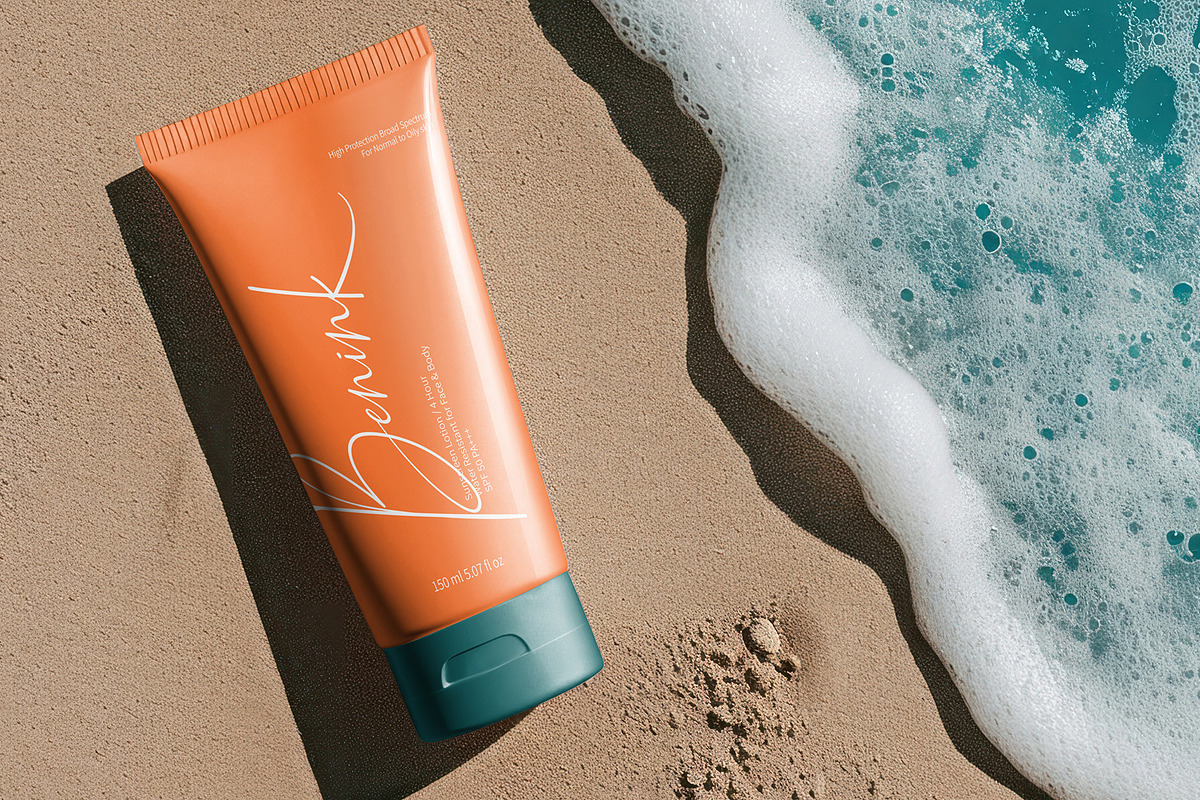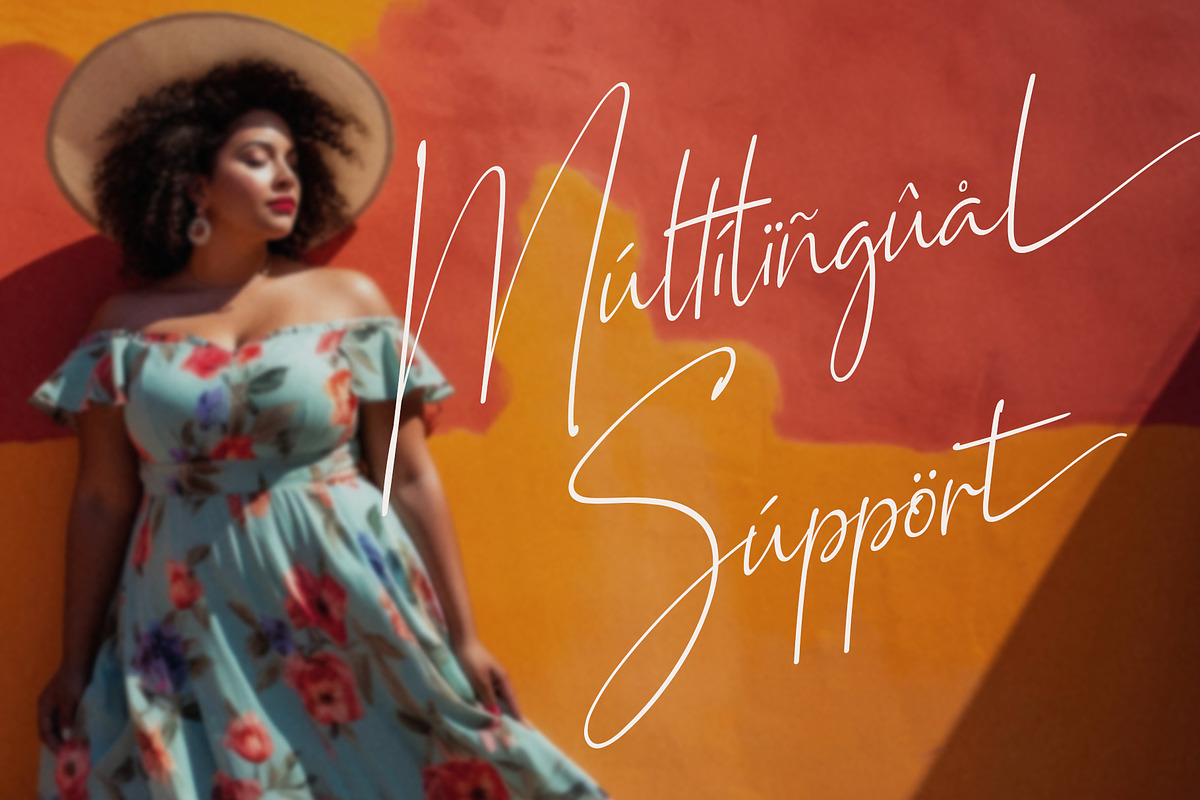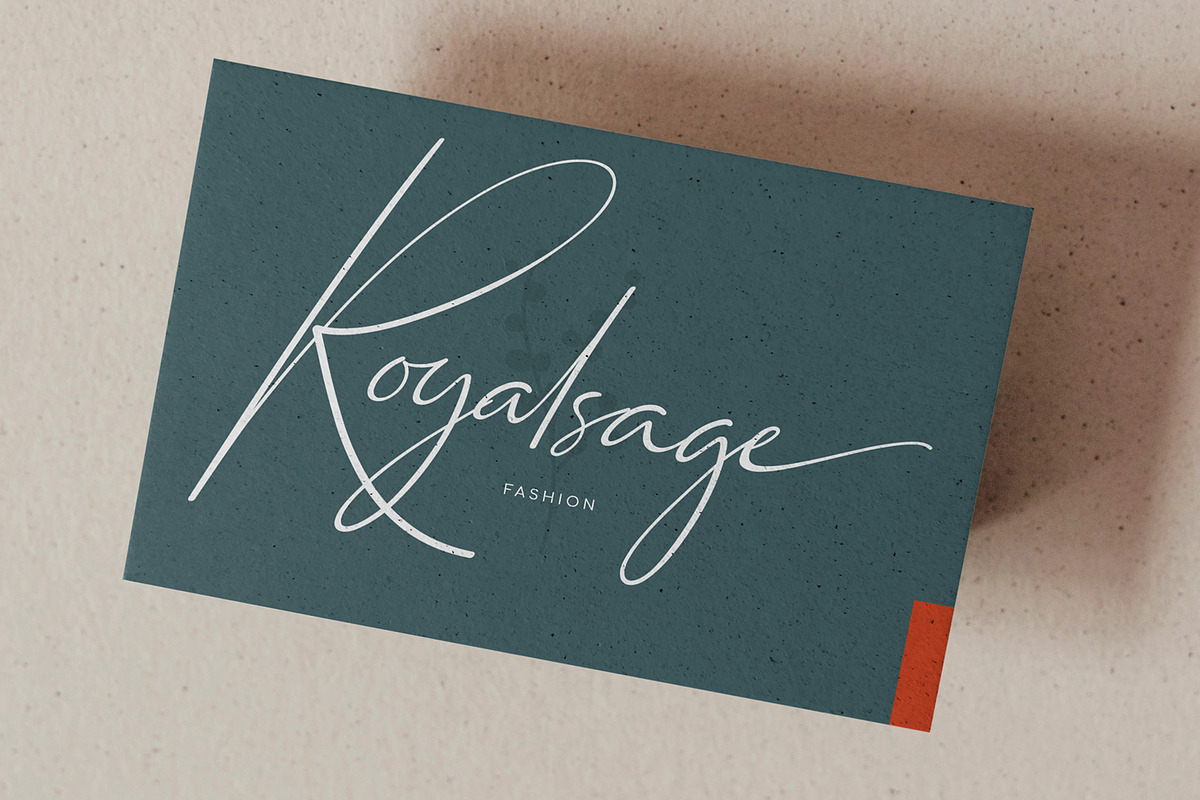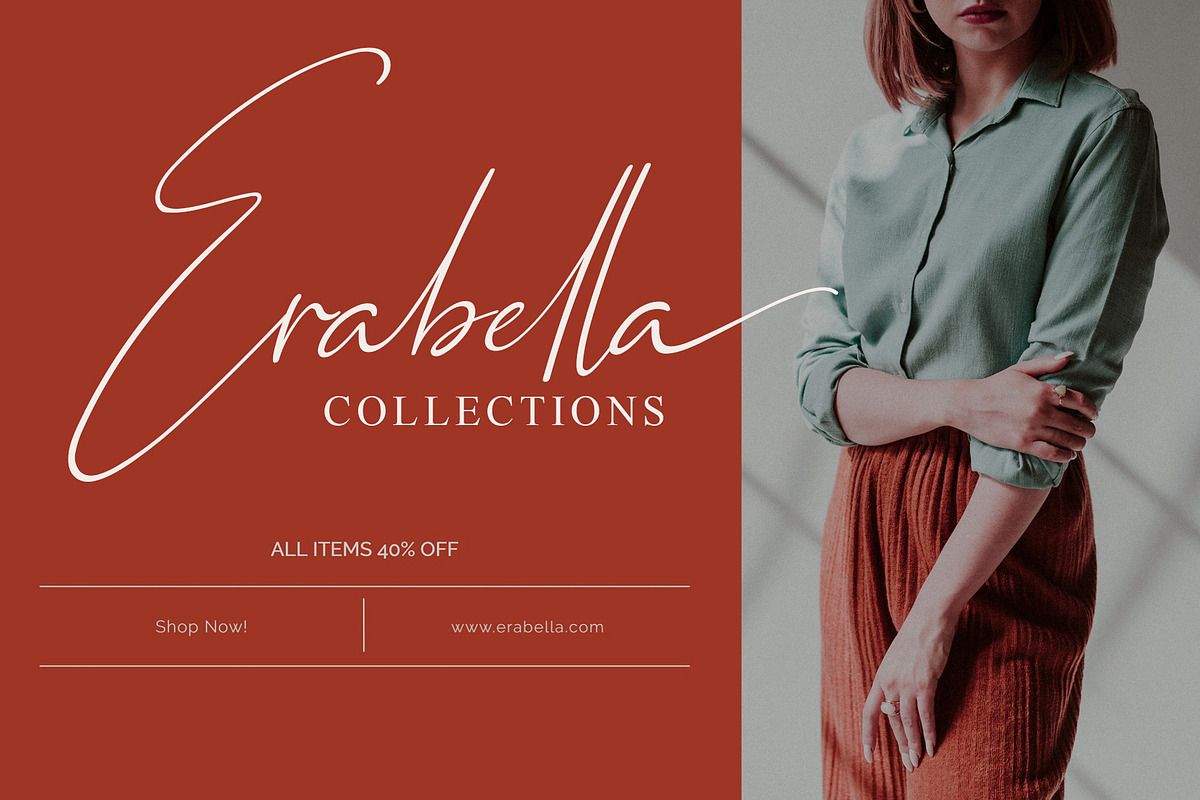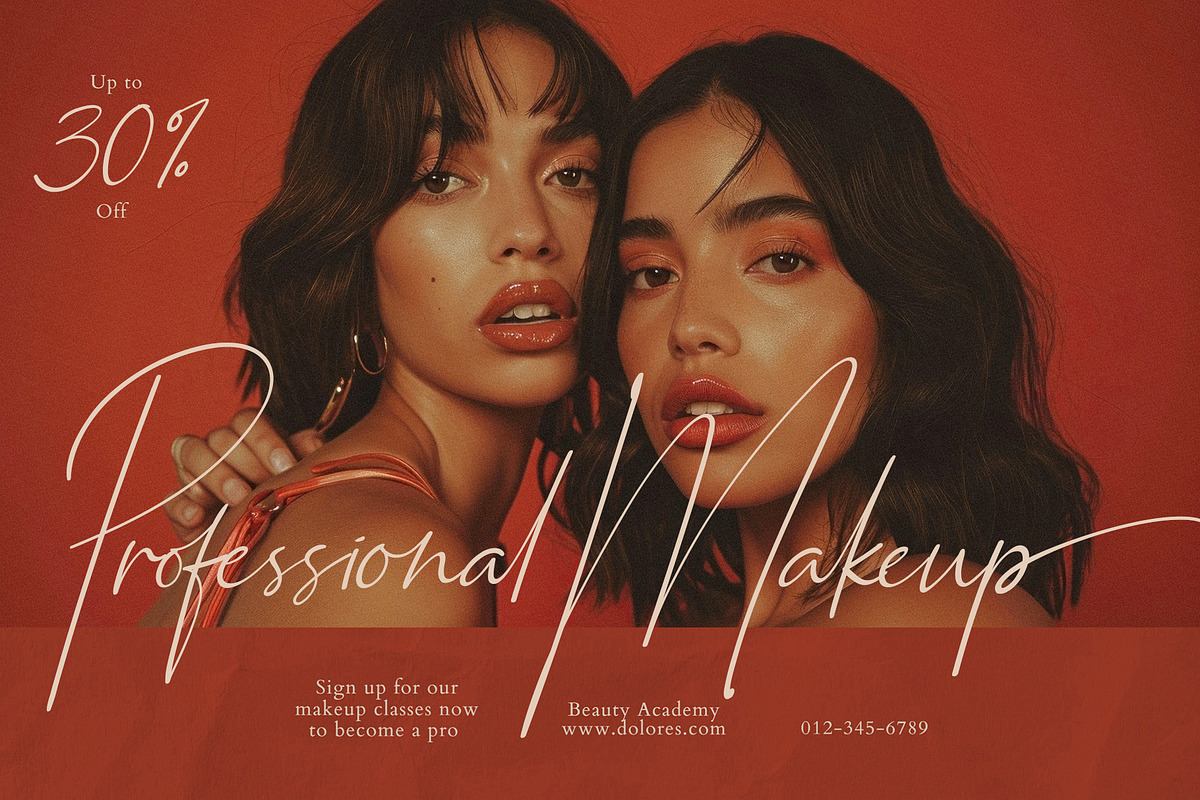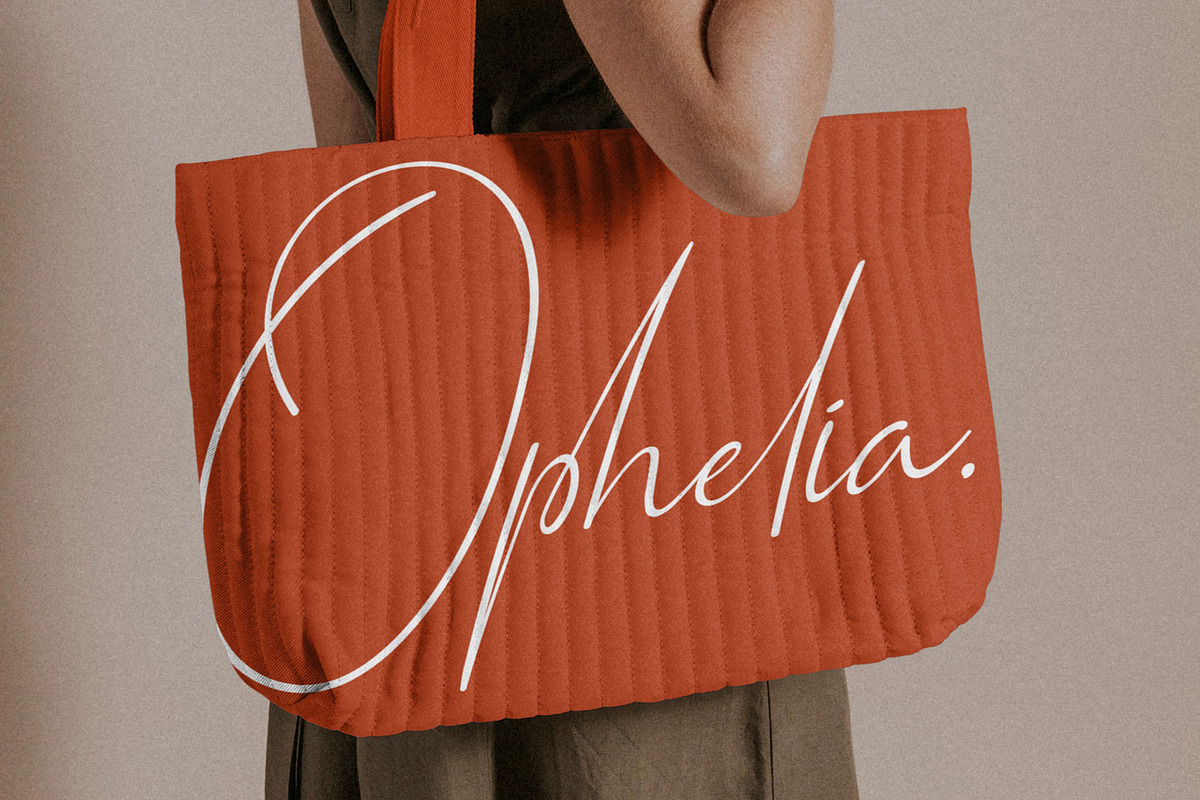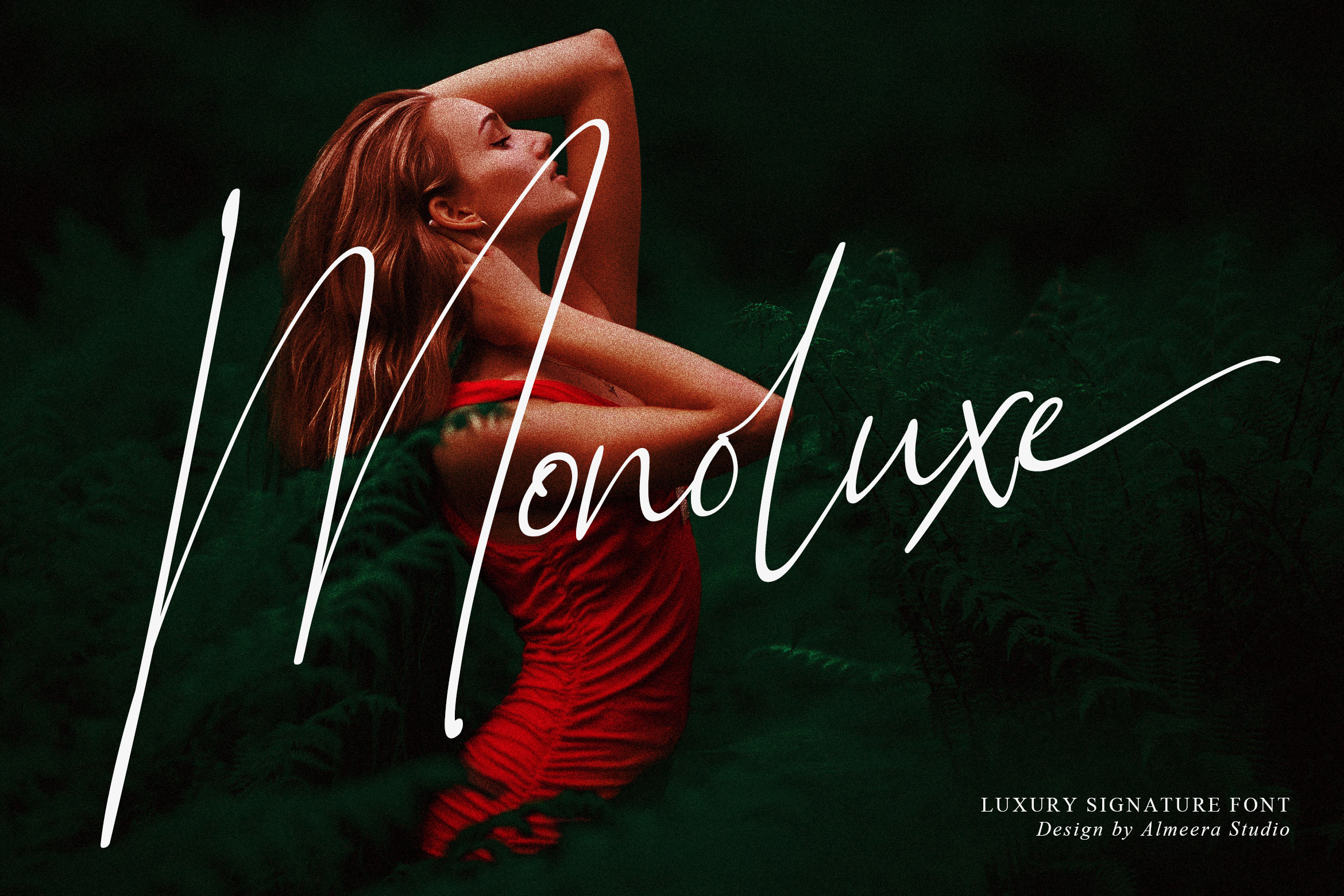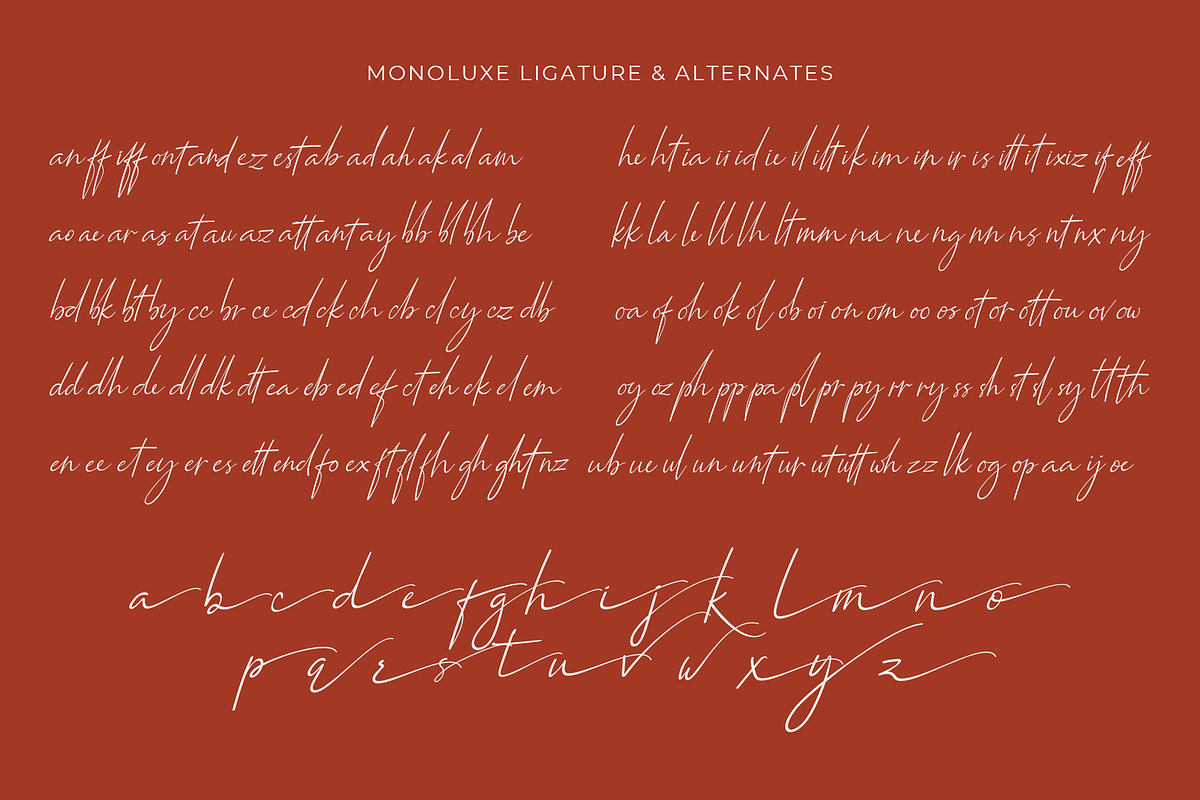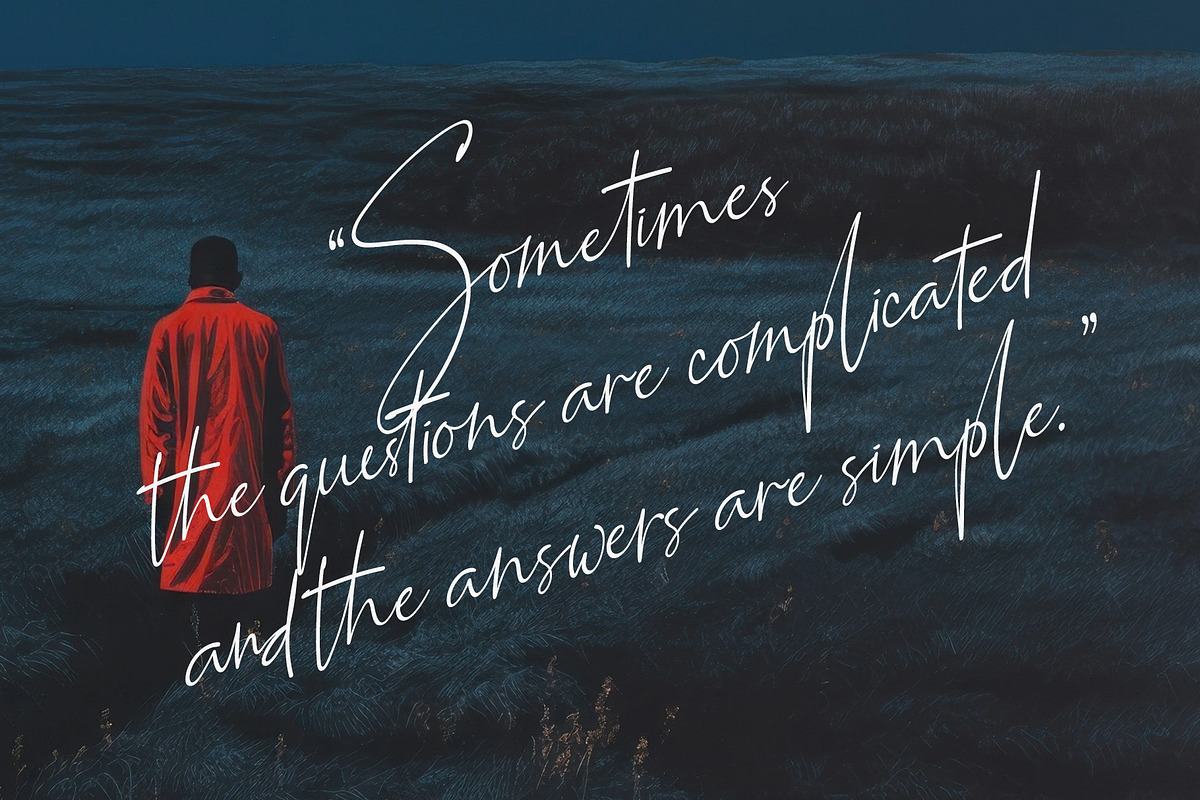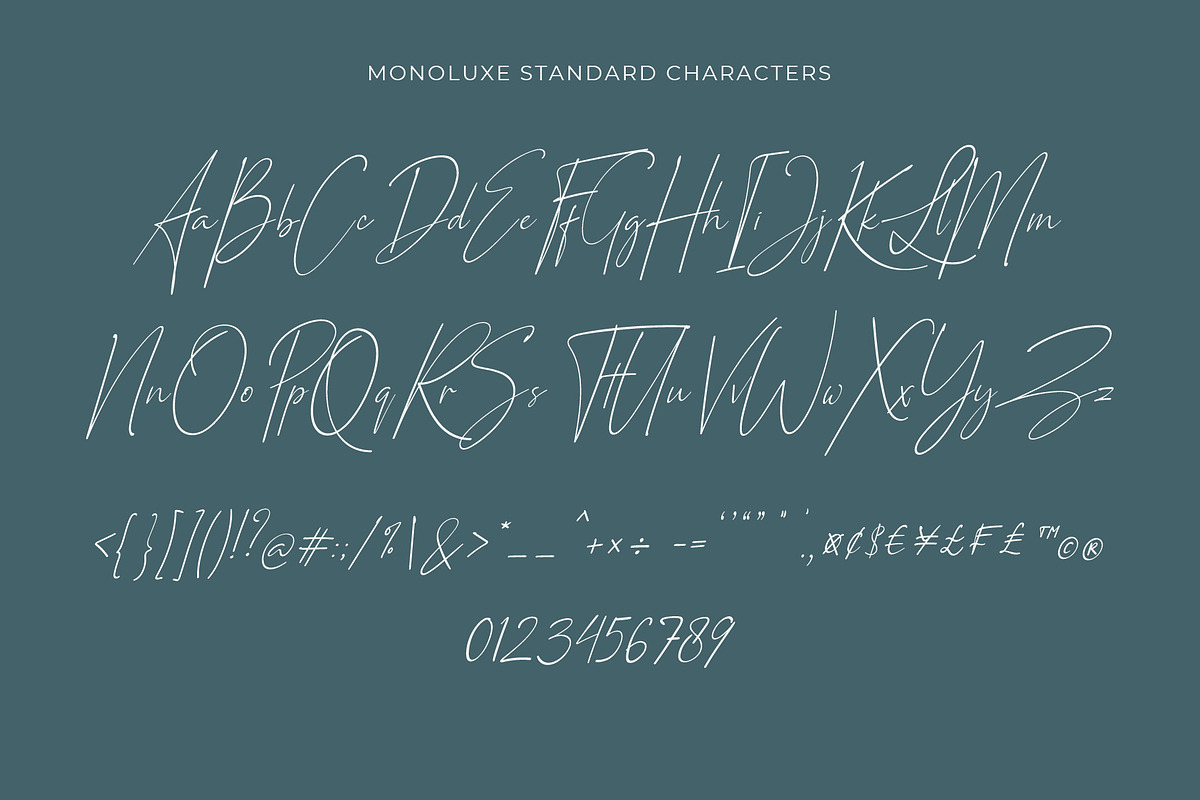
Monoluxe - Signature Font
Introducing Monoluxe - Luxury Signature Font, a sophisticated Handwritten font that exudes luxury and grace, making it the ideal choice for elegant logos, wedding invitations, photography branding, modern websites, and more. This font comes beautifully enhanced with stylish ligatures and delicate swashes at end of lowercase letters, giving your designs that perfect, personalized handwritten touch. Whether you're creating timeless wedding stationery or adding a touch of elegance to your brand, Monoluxe brings unmatched beauty and refinement to every project.
- Ligature & alternates